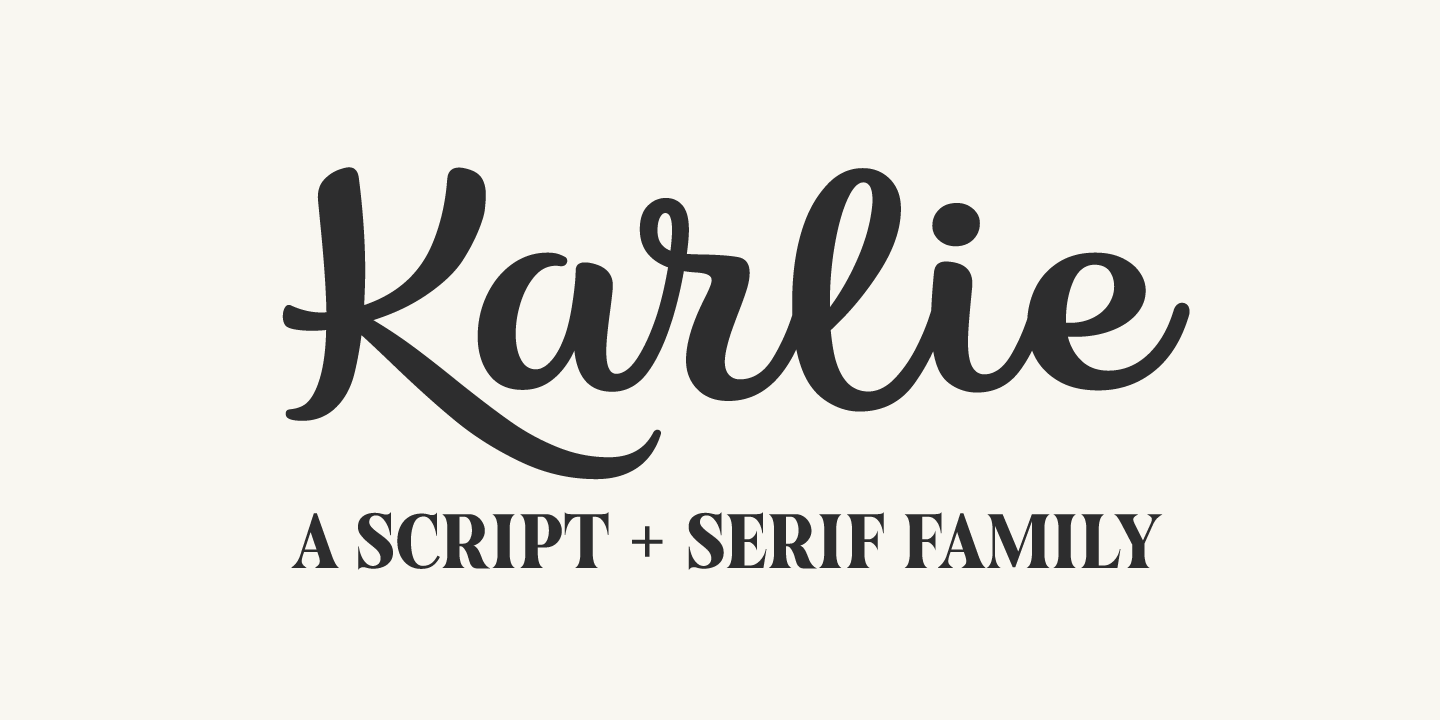
Karlie Font Free Download is a stylish, modern serif typeface designed to offer elegance and readability in equal measure. Perfect for luxury branding, editorial design, wedding invitations, logos, and high-end product packaging, this font features refined, graceful letterforms that combine classic charm with a contemporary twist. Karlie Font adds sophistication to any creative project while maintaining clarity and balance.
With Karlie Font Free Download, you’ll receive a complete set of uppercase letters, lowercase, numbers, and essential punctuation, offering versatility for both print and digital applications. Whether you’re designing marketing materials, creating a chic logo, or crafting premium branding assets, this font ensures readability while adding a touch of class and elegance.
Elevate your design projects with Karlie Font Free Download. Its elegant, modern style makes it a standout choice for visuals that need sophistication, readability, and a touch of timeless beauty.